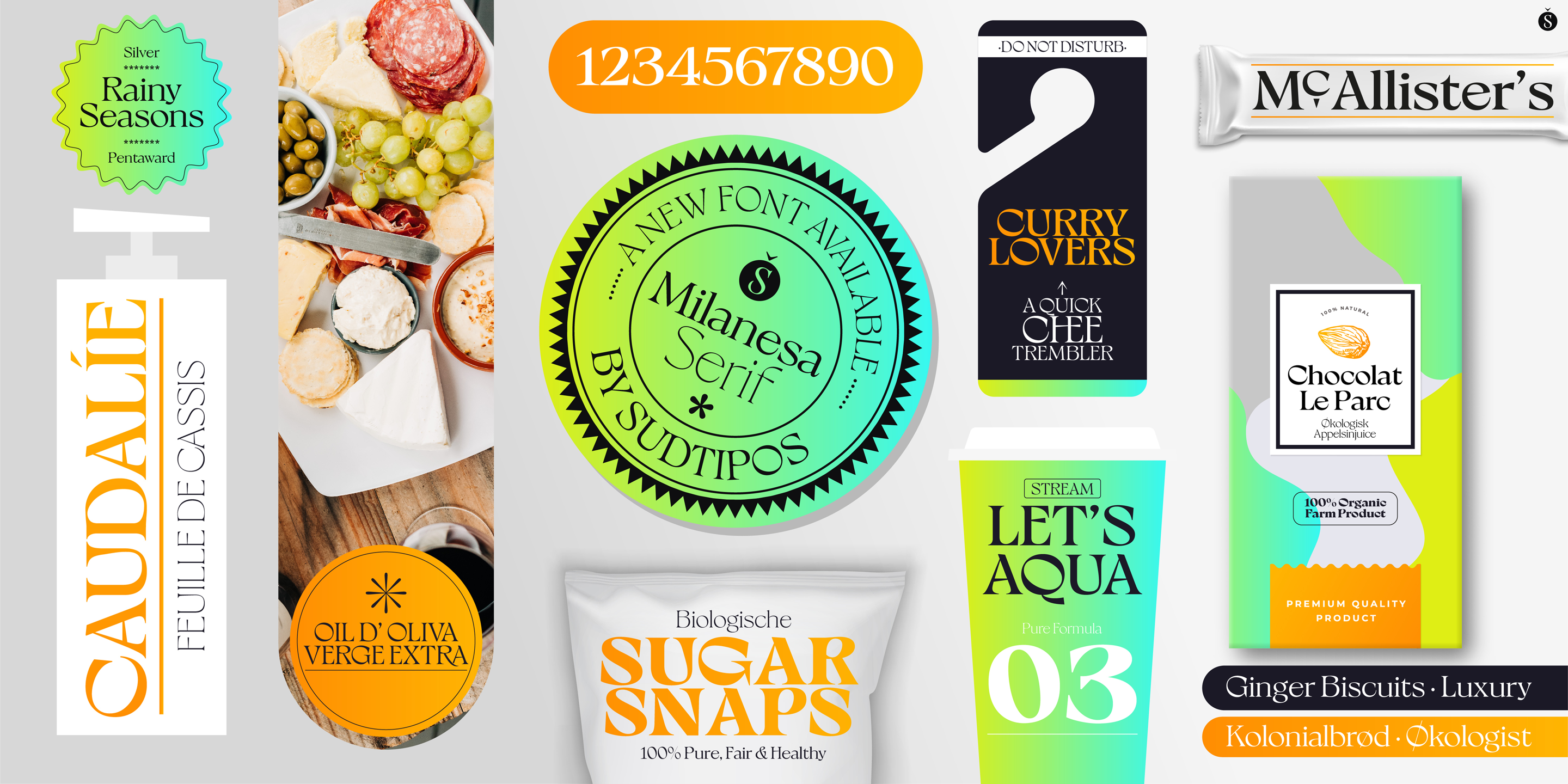
Milanesa Serif Font is perfect for editorial design, book typography, literary magazines, academic publications, cultural branding, art gallery materials, and sophisticated print applications. This refined typeface excels in creating elegant and intellectual visual communications.
Milanesa Serif Font is exciting because it combines classical serif traditions with contemporary design sensibilities, featuring distinctive character shapes and refined details that create both visual interest and exceptional readability. Its sophisticated aesthetic elevates any design project with timeless elegance.
The Milanesa Serif Font family includes multiple weights ranging from Light to Bold, along with corresponding italic styles. This comprehensive collection provides designers with versatile options for creating dynamic typographic hierarchies and sophisticated layouts.
Milanesa Serif Font Free Download offers designers access to an expertly crafted serif typeface that represents the perfect balance between classical typography and modern innovation. This distinguished font features carefully designed letterforms with elegant proportions and refined serif details that enhance both individual character recognition and overall text flow. The typeface showcases subtle contrast and graceful curves that create visual rhythm while maintaining optimal readability in extended text applications. Its sophisticated character makes it particularly suitable for high-quality publications and cultural projects where typographic excellence is essential. Milanesa Serif Font delivers consistent performance across various applications, from intimate book design to large-scale editorial layouts. The font's timeless appeal and technical precision ensure professional results that command respect and attention while providing readers with a comfortable and engaging reading experience.